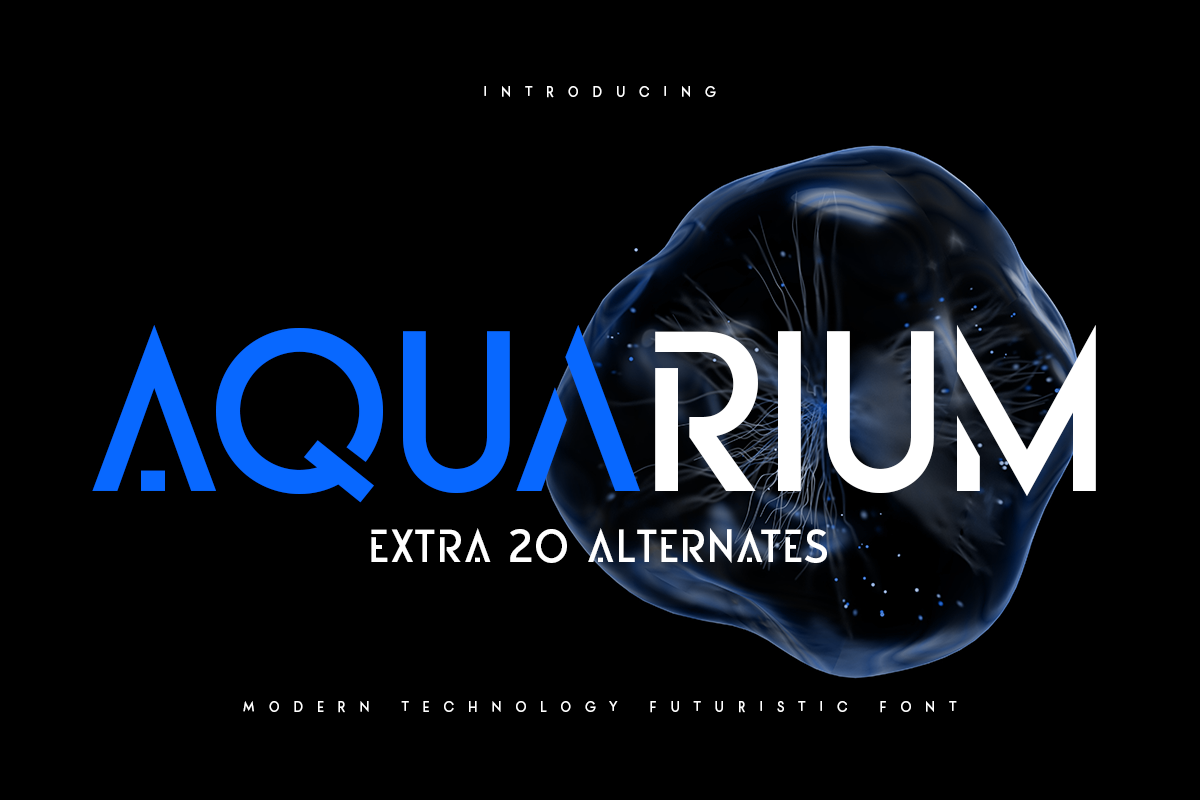
Aquarium - Modern Futuristic Font
Transform your futuristic projects with Aquarium – the sharp, modern sans serif font designed for cutting-edge technology branding. This contemporary display typeface features sleek geometric shapes that deliver exceptional legibility while maintaining a distinctly futuristic aesthetic. Perfect for technology companies, startups, and digital brands seeking a professional yet forward-thinking visual identity. Aquarium excels across diverse applications including logo design, social media graphics...